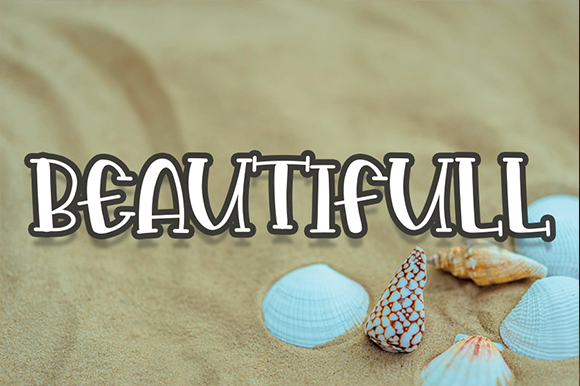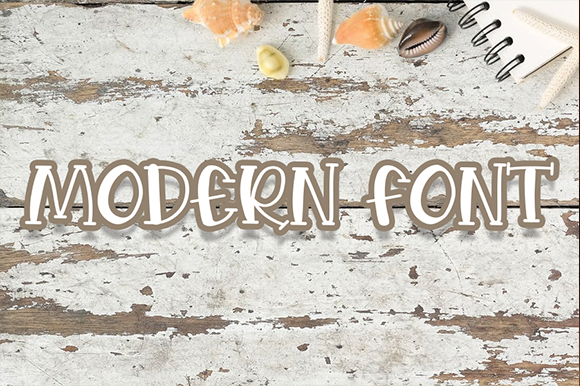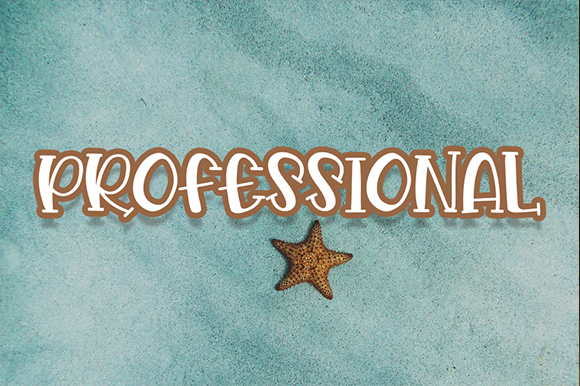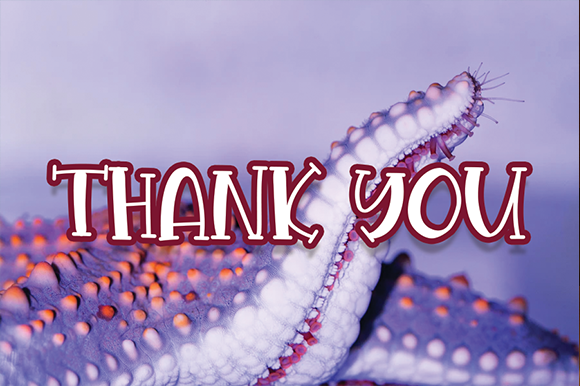
Introduction to Shells and Starfish Font
Have you ever been scrolling through your favorite design inspiration board, and suddenly a particular font catches your eye? For many creatives, this moment is like a spark of creativity – it’s the moment when a design idea starts to take shape. For us, that moment came when we stumbled upon the delightful Shells and Starfish Font. Its charming, hand-drawn feel instantly won us over, and we knew we had to dive deeper.
Key Features of Shells and Starfish Font
- High-quality design resource featuring unique illustrations of shells and starfish
- Perfect for use in children’s books, educational materials, and other design projects requiring a playful touch
- Ideal for designers, artists, and educators seeking a creative and engaging design resource
Honest Review: Shells and Starfish Font
As a designer, I’m always on the lookout for high-quality design resources to add a touch of personality to my creative projects. The Shells and Starfish Font caught my eye with its unique, hand-drawn aesthetic.
- Unique, hand-drawn design
- High-quality design for crisp text
However, there are a few limitations: ⚠️ The font is only suitable for creative projects that require a whimsical or beach-inspired theme. It may not be the best choice for formal or corporate designs.
Overall, I’m impressed with the Shells and Starfish Font. It’s a great addition to any designer’s toolkit, and I’m excited to see how it can elevate my future projects.
The Shells and Starfish Font is a unique and beautiful design resource that can elevate your creative project to the next level. With its high-quality and intricate design, this font is perfect for any project that requires a touch of elegance and sophistication.
- Use the font with a transparent background to create a sense of depth and elegance.
- Experiment with different font sizes and styles to create a unique and eye-catching design.
- Combine the font with other design elements, such as graphics and images, to create a cohesive and visually appealing design.